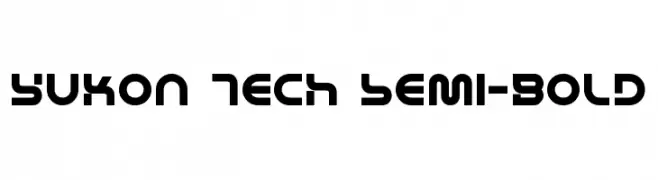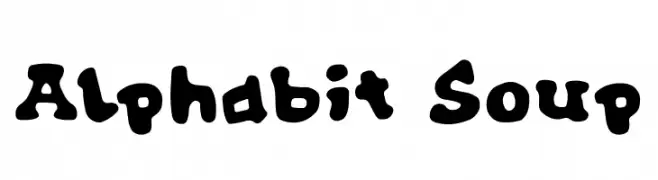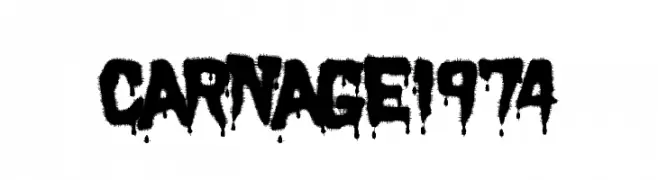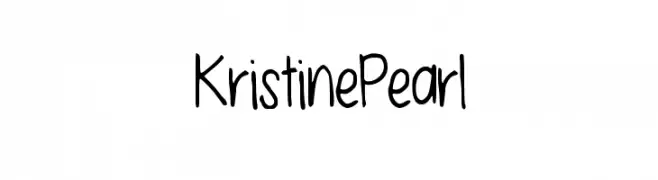
( Fonts by Ben Dunkle )
A playful, bold font with a bubbly, cartoonish style and rounded edges.
An abstract, artistic font with bold, irregular shapes and a decorative style.
( Fonts by Jason Arthur - JibbaJabba Fonts - www.myspace.com/jasonarthurloaded )
A bold, angular font with a dynamic, edgy, and graffiti-like style.
( Woodcutter - woodcutter Manero - www.woodcutter.es )
A bold, horror-themed font with a dripping effect and dramatic style.
A bold, italic, and angular font with a modern, geometric style.
( Kristine Pearl Infante )
A playful, casual handwritten font with smooth, rounded edges.
( Fonts by Marty Bee - www.martybee.com )
A whimsical, hand-drawn font with tall, narrow characters and a playful style.